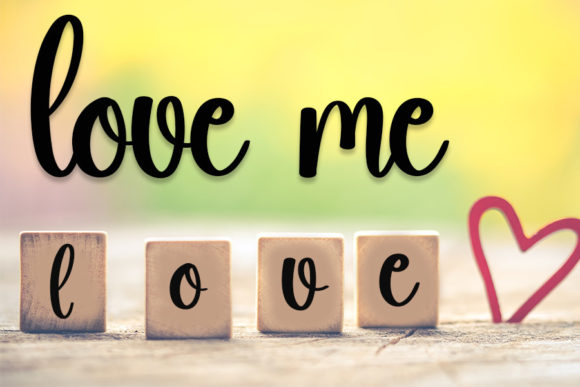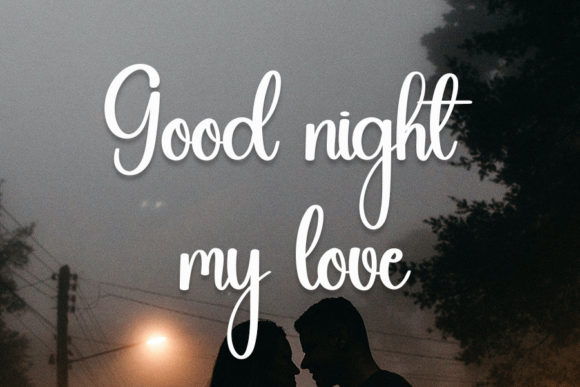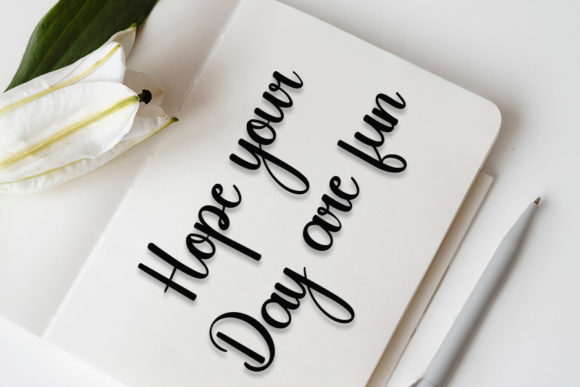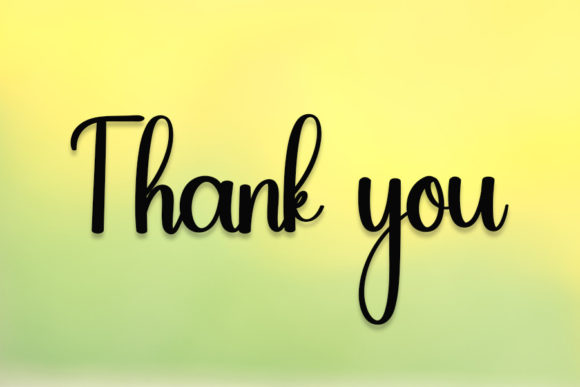
Introduction to Blind Love Font
As a designer, there’s nothing quite like the thrill of discovering a new font that perfectly captures the essence of your creative project. For me, that moment came when I stumbled upon the Blind Love Font. Its delicate, handwritten script instantly transported me to a world of romance and whimsy.
With its transparent background and high-quality design, the Blind Love Font is a valuable resource for any designer looking to add a touch of elegance to their work. Whether you’re creating wedding invitations, cards, or simply want to add a personalized touch to a design, this font is sure to impress. And the best part? It’s available for free download, making it an accessible design resource for creatives of all levels.
Key Features of Blind Love Font
- Unique, hand-drawn design ideal for creative projects and artistic expressions
- High-quality font with a transparent background, perfect for use on any design resource
- Includes a range of glyphs and characters, making it suitable for various design applications
- Perfect for designers and artists looking for a distinctive and creative font to elevate their work
Honest Review: Blind Love Font
I recently stumbled upon the Blind Love Font while searching for a unique design resource for my creative project. This font caught my eye with its elegant and quirky style, perfect for adding a touch of whimsy to my designs.
- The font has a transparent background, allowing for seamless integration with other design elements.
- The high quality of the font makes it suitable for both personal and commercial projects.
- The font’s versatility makes it easy to use in various design contexts, from branding to editorial design.
- The font may not be suitable for projects requiring a more formal or conservative tone.
- The font’s unique style may be distracting in certain design contexts.
Overall, I’m impressed with the Blind Love Font’s potential and versatility. While it may not be suitable for every project, it’s a great addition to any designer’s toolkit. I’ll definitely be using it for my next creative project.
The Blind Love Font is a high-quality, free design resource that can elevate your creative project with its unique style and transparent background.
The Blind Love Font is suitable for a variety of creative projects, including social media graphics, blog posts, and marketing materials.
For the best results, use the Blind Love Font on a high-quality image or background with a transparent layer to create a visually appealing design. Experiment with different font sizes and styles to add emphasis to your text.
Is the Blind Love Font suitable for digital and print use?
Yes, the Blind Love Font is designed to be versatile and suitable for both digital and print use. The font’s high-quality design ensures that it will look great on both screens and printed materials. However, please note that the font’s performance may vary depending on the resolution and printing quality of the final output.